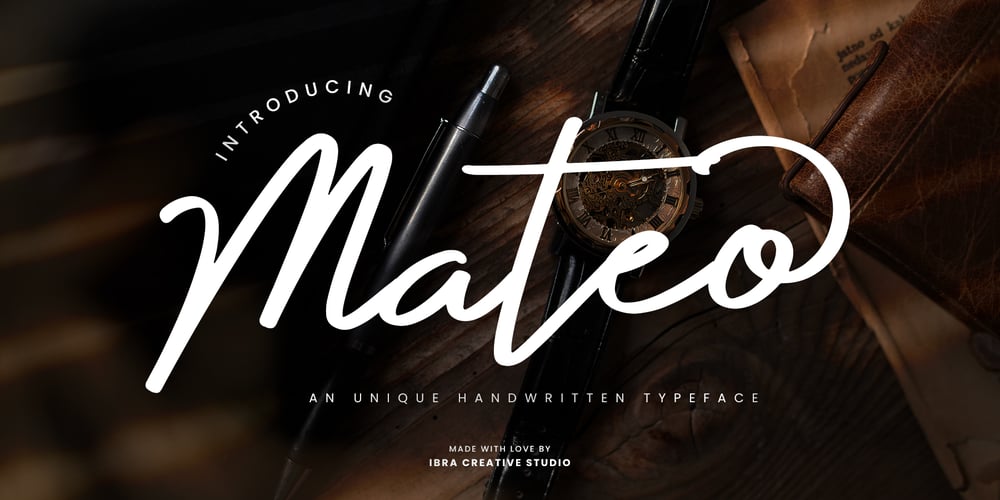
Mateo Unique Font Family was designed by Roisatul Azizah and published by IbraCreative. Mateo Unique contains 1 styles and family package options. Mateo is an extraordinary and unique handwritten typeface that stands out with its captivating originality. With letters that seem like hand-drawn works of art, each character in Mateo carries a distinct personality, exuding a sense of authenticity and creativity. The charmingly irregular lines and artistic flourishes lend this typeface an artistic and handcrafted feel, making it a perfect choice for projects that require a touch of individuality and unconventional style. Mateo’s versatility is showcased in its ability to seamlessly adapt to diverse design contexts, whether used for eye-catching logos, expressive quotes, or artistic illustrations. With its one-of-a-kind appearance, Mateo transcends traditional typefaces, inviting viewers to explore the world of handwritten artistry in every stroke and curve